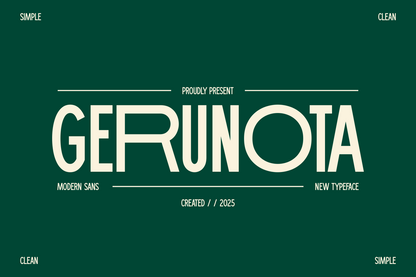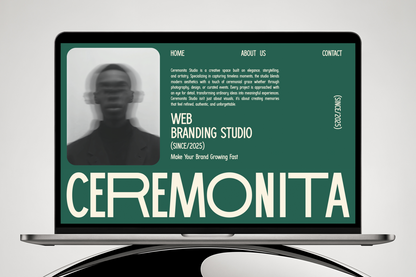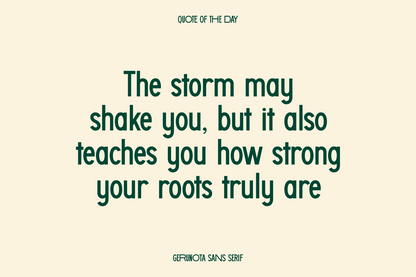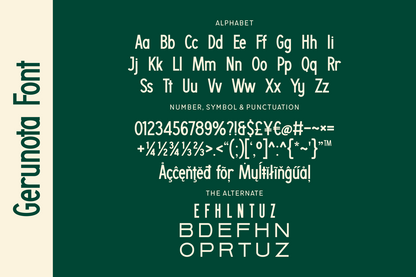
Gerunota is a clean, ultra-modern sans serif font with a geometric edge and retro undertones. Its tall structure and striking style make it great for posters, album covers, logos, and eye-catching headlines with a touch of nostalgia.